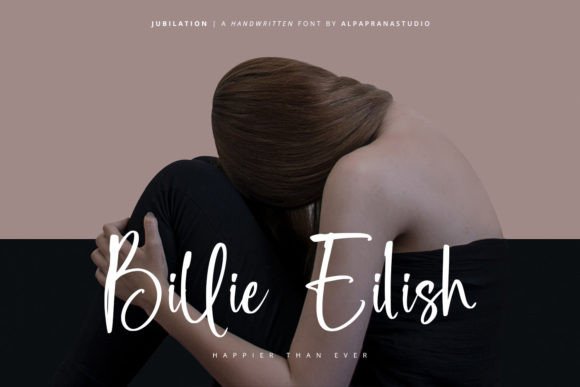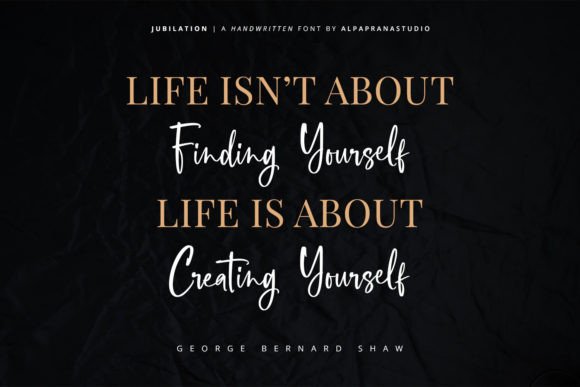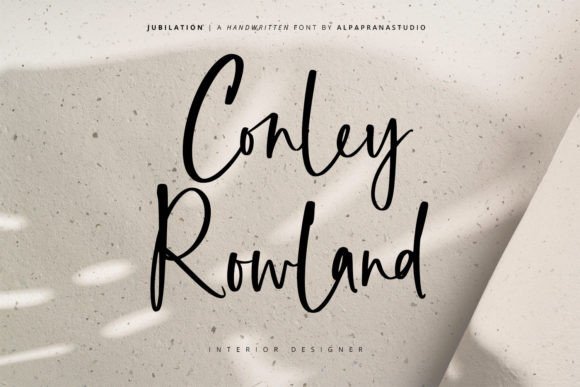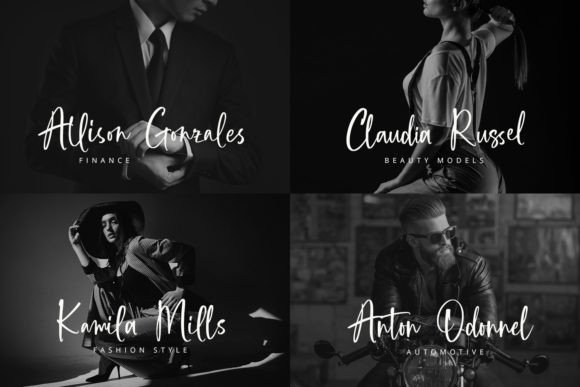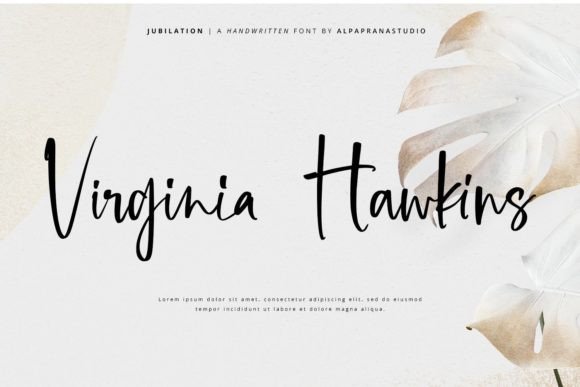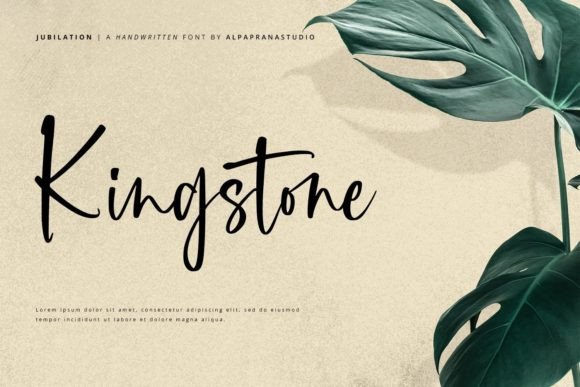
Introduction to Jubilation Font
Jubilation is a modern and natural-looking signature script font.
Fall in love with its stylish and elegant look and use it to create stunning designs .
Key Features of Jubilation Font